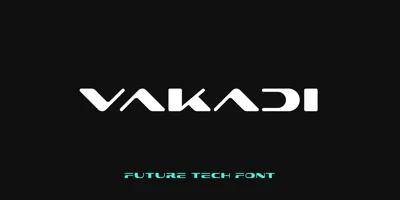
VakaDi Font
VakaDi Font is perfect for innovative tech startups, creative agency branding, modern digital interfaces, contemporary product packaging, progressive marketing campaigns, cutting-edge logo design, futuristic advertising materials, dynamic presentation graphics, experimental typography projects, and forward-thinking brand communications. This distinctive typeface creates compelling modern atmosphere in both digital platforms and print applications.
What makes VakaDi Font exciting is its unique fusion of geometric precision with organic fluidity that creates a distinctly contemporary personality. The font features innovative letterforms with unexpected character details and progressive styling that reflect modern design thinking and creative innovation. Its distinctive design establishes an atmosphere of creative intelligence and technological sophistication that resonates with forward-thinking audiences.
VakaDi Font family includes innovative styles: Thin, Light, Regular, Medium, Bold, and Black versions, each with experimental alternates and progressive character sets. Each variant maintains the font's creative character while providing designers with versatile options for creating dynamic typography systems and innovative communication materials.
This exceptional contemporary typeface brings creative authenticity to projects requiring progressive presentation. Whether you're designing tech brands, creative campaigns, or innovative marketing materials, VakaDi Font delivers exceptional modernity and creative sophistication. The font's unique proportions and innovative details ensure memorable brand distinction across various contemporary applications.